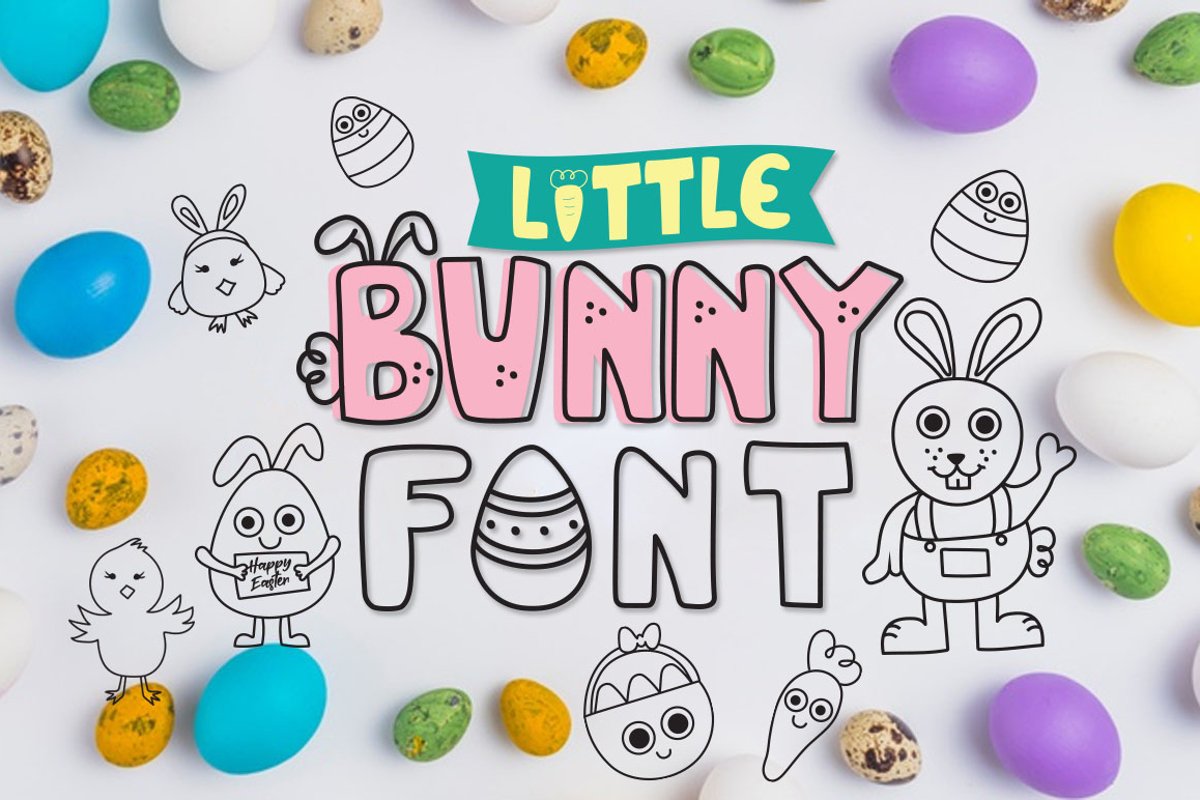
The Little bunny font is a duo of fun fonts with Easter items like carrots, eggs, mustache, bunny ears and scribbles that will help you make compositions!
Its rabbit ears details make it a special typography for Easter, perfect for projects such as customizing egg cubes, monogram initials and writing names for headings.